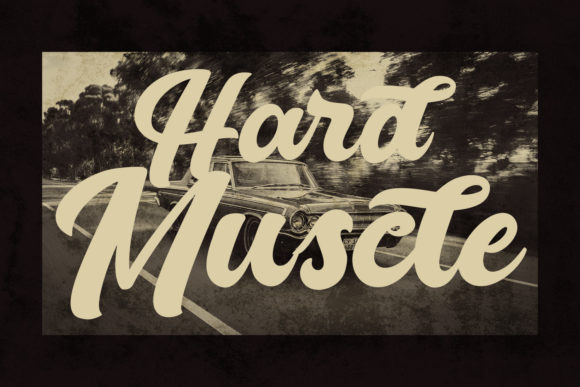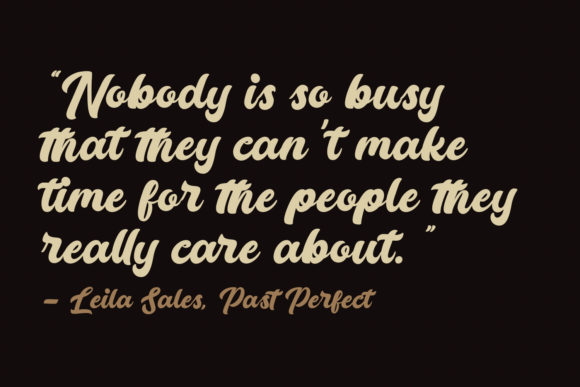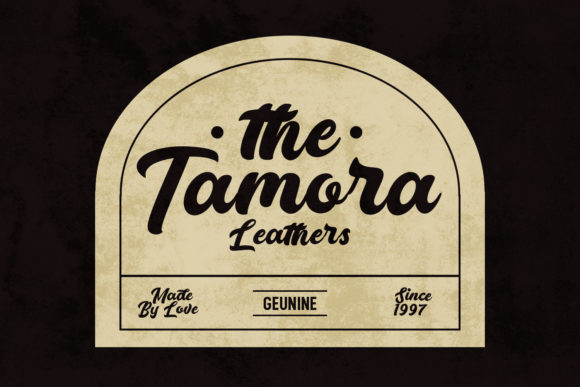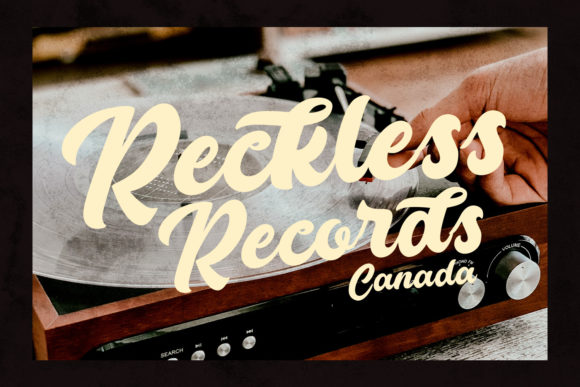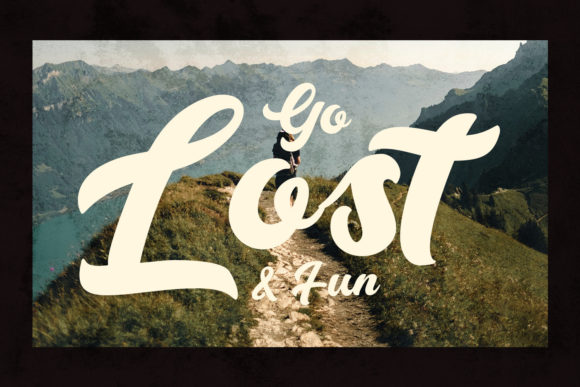
About Ginghart Script Font
Ginghart Script is a fancy and retro styled script font. It features medium contrast strokes, fun characters, ligatures and alternates. Get inspired by its incredibly versatile style and use it to create spectacular designs.